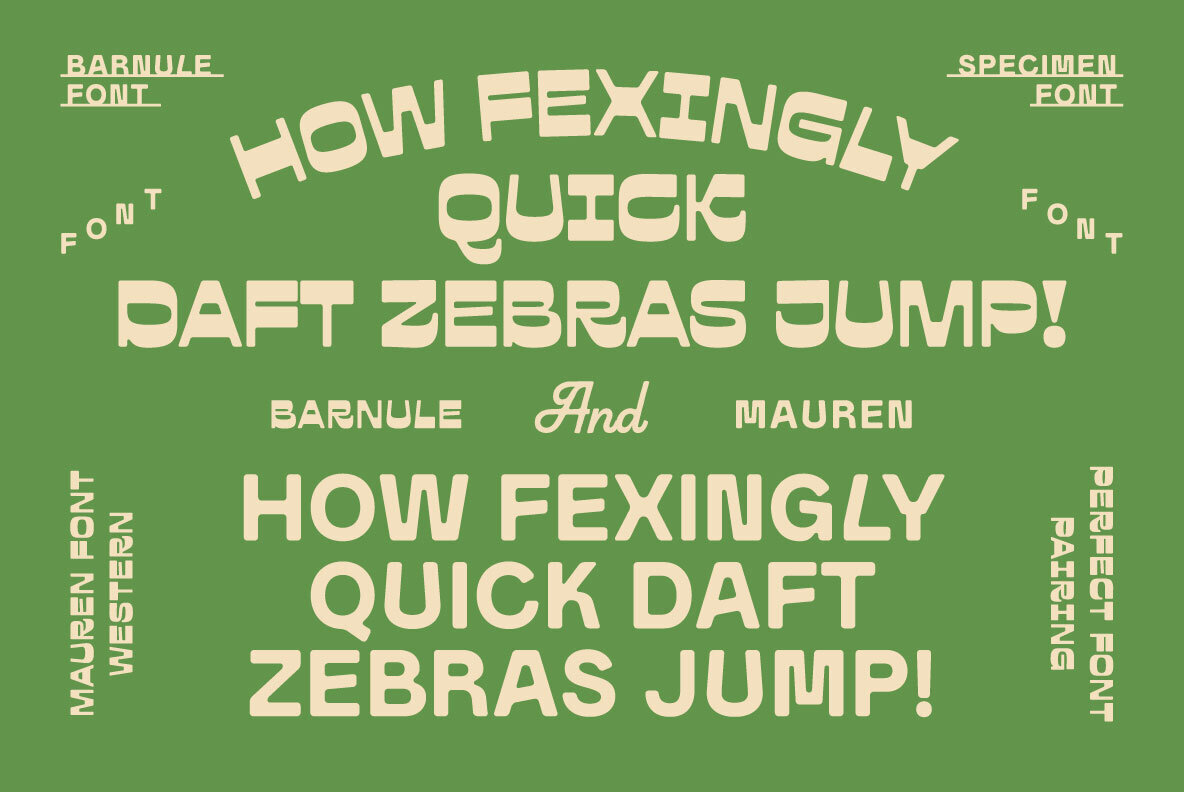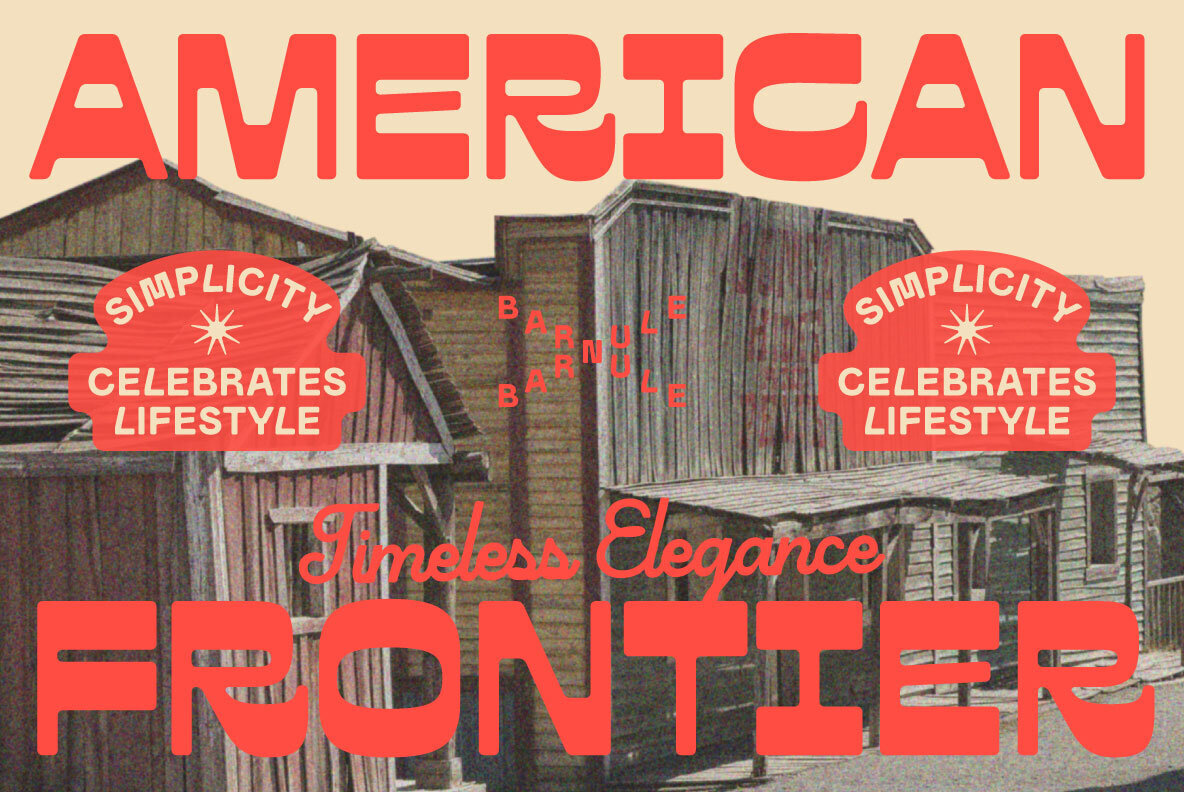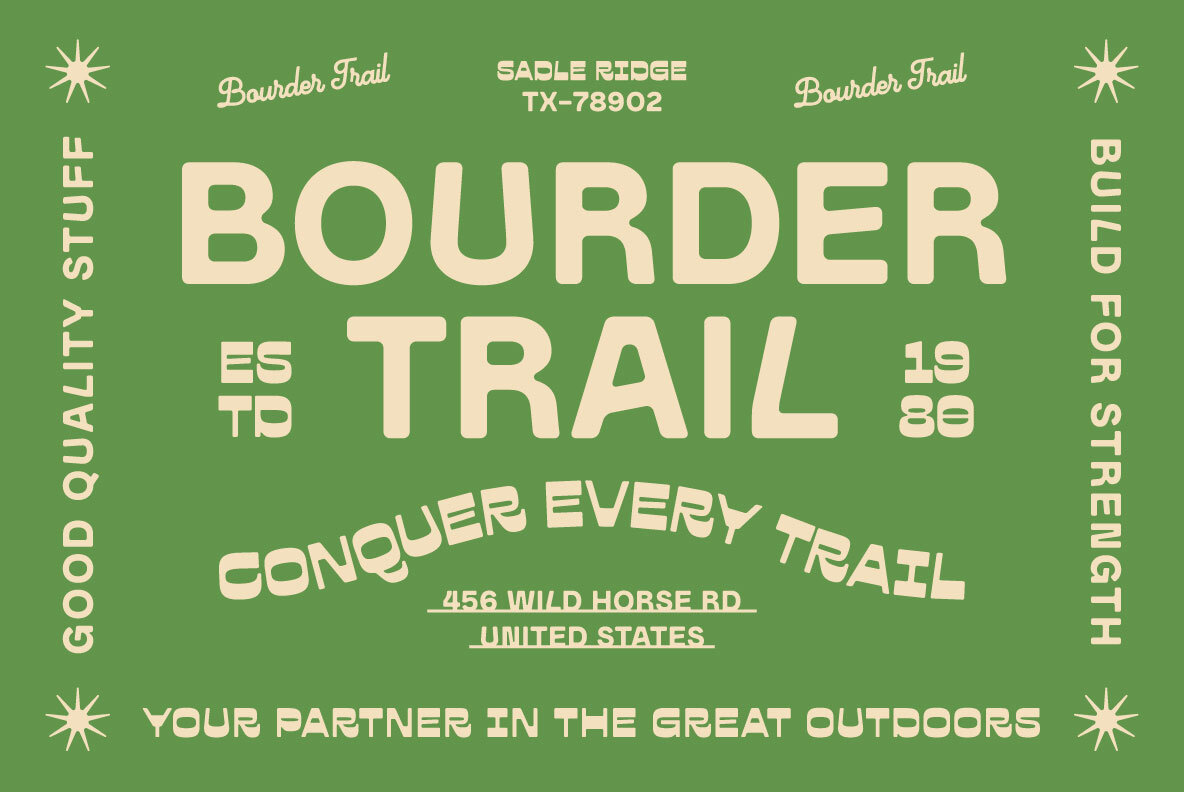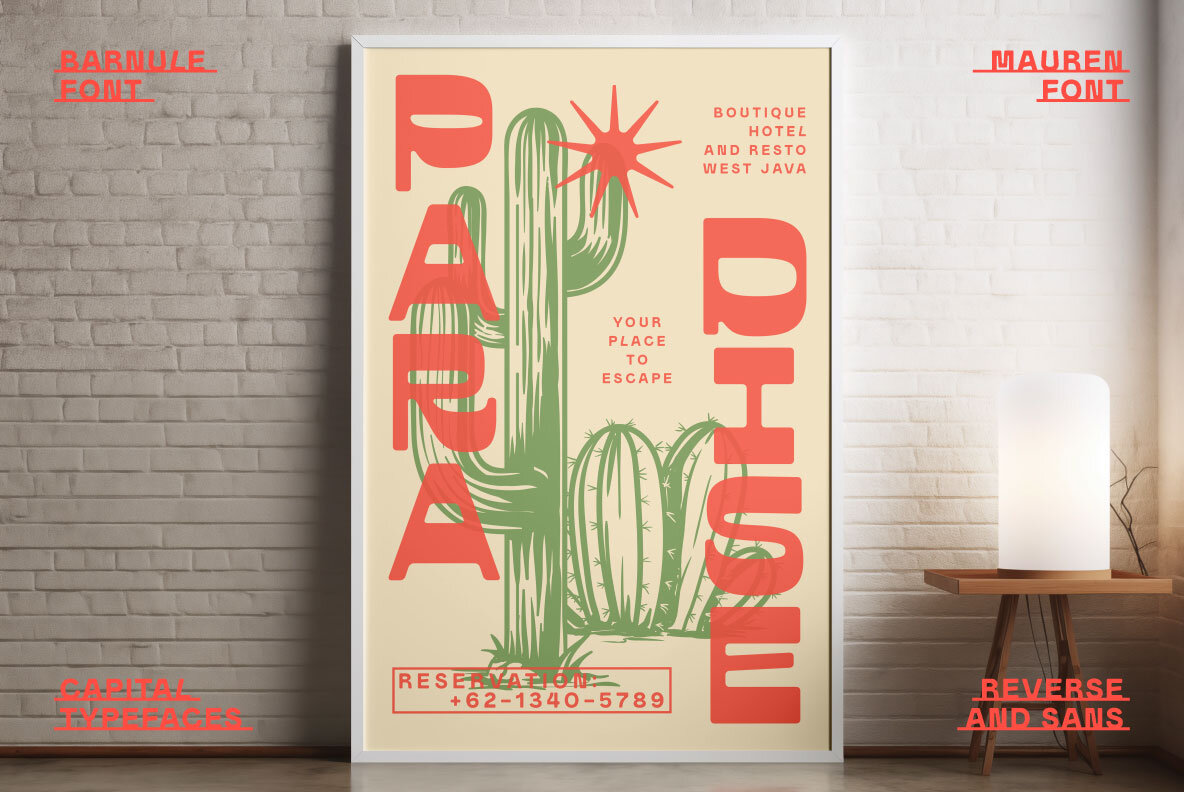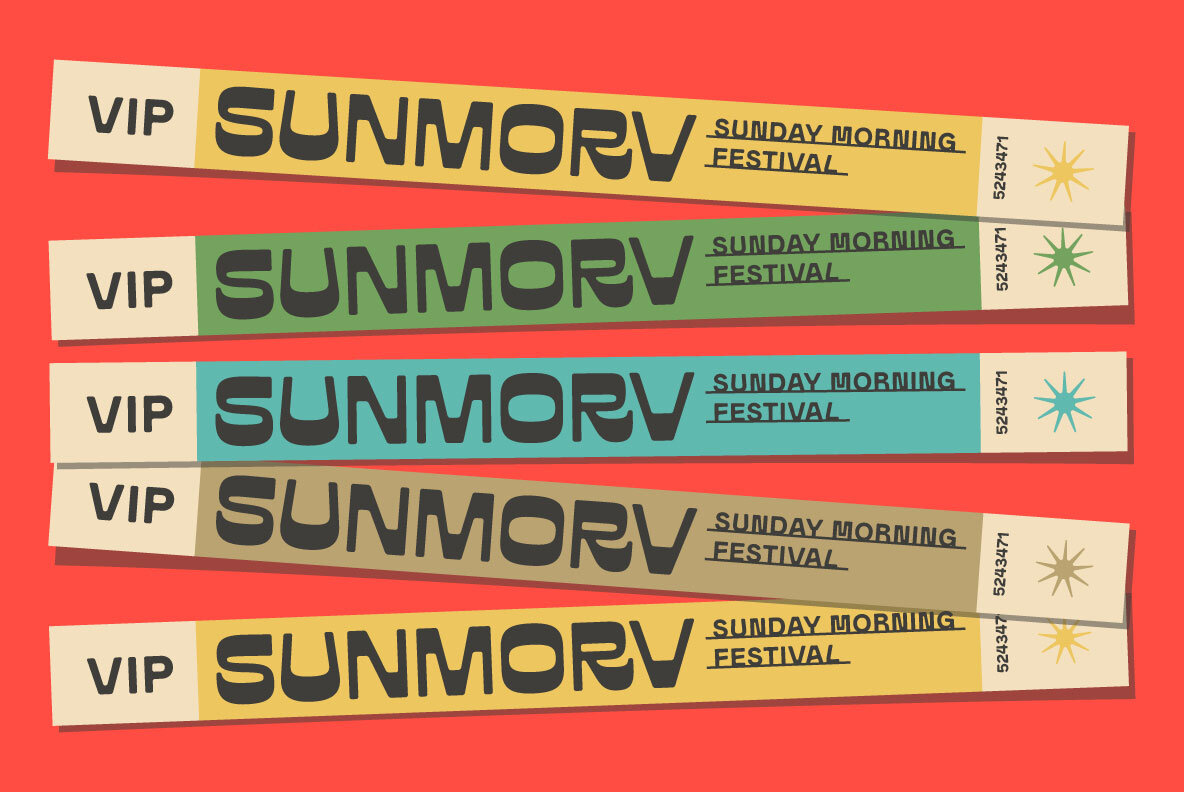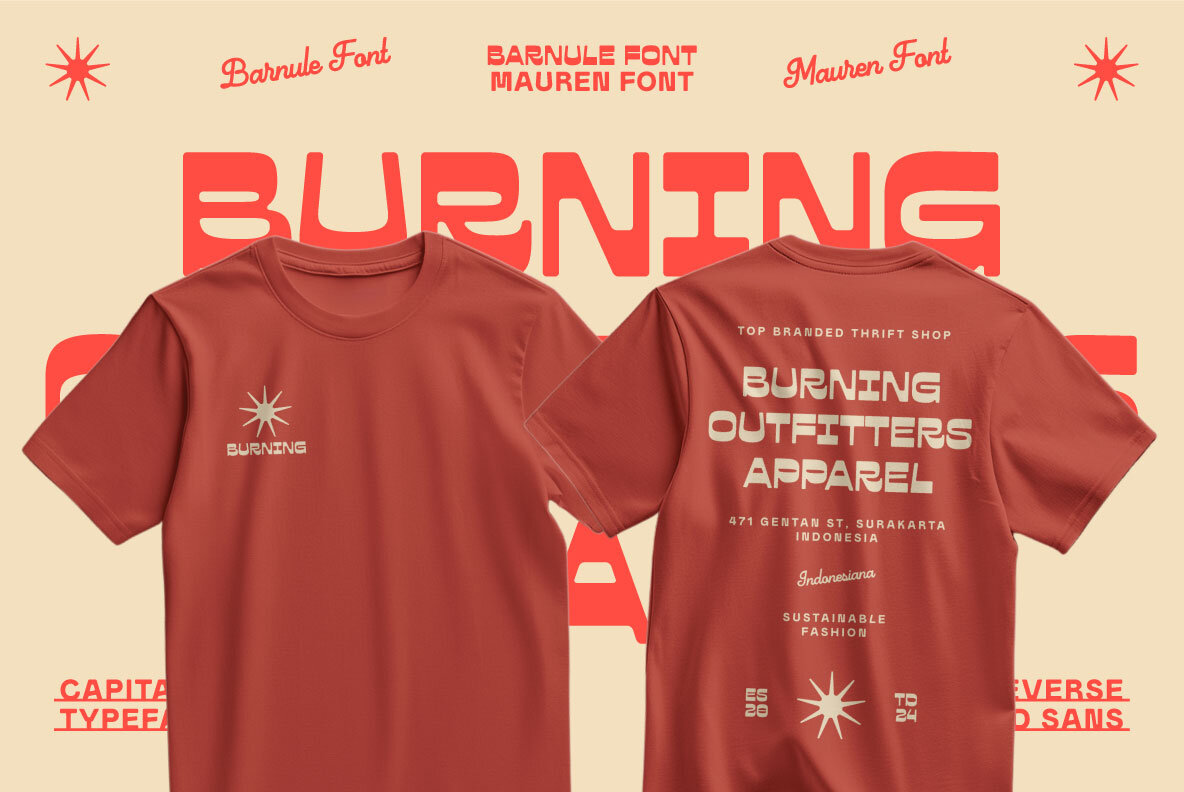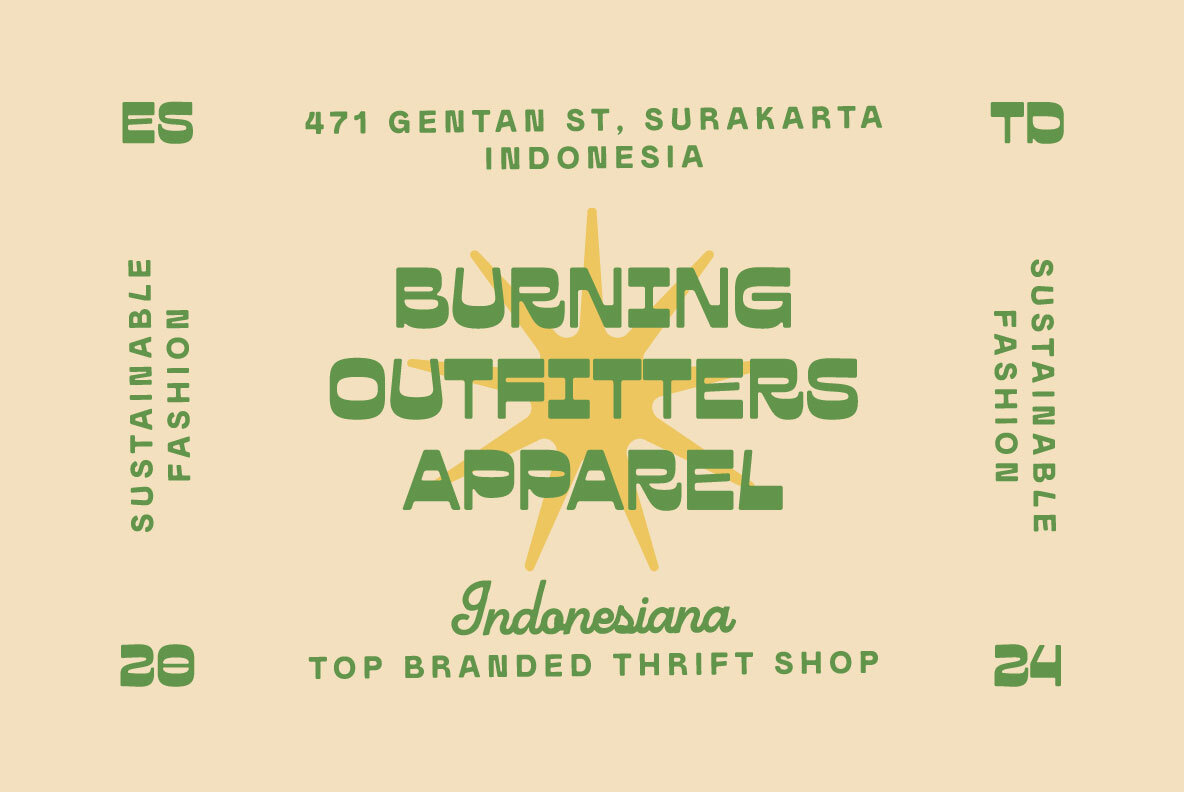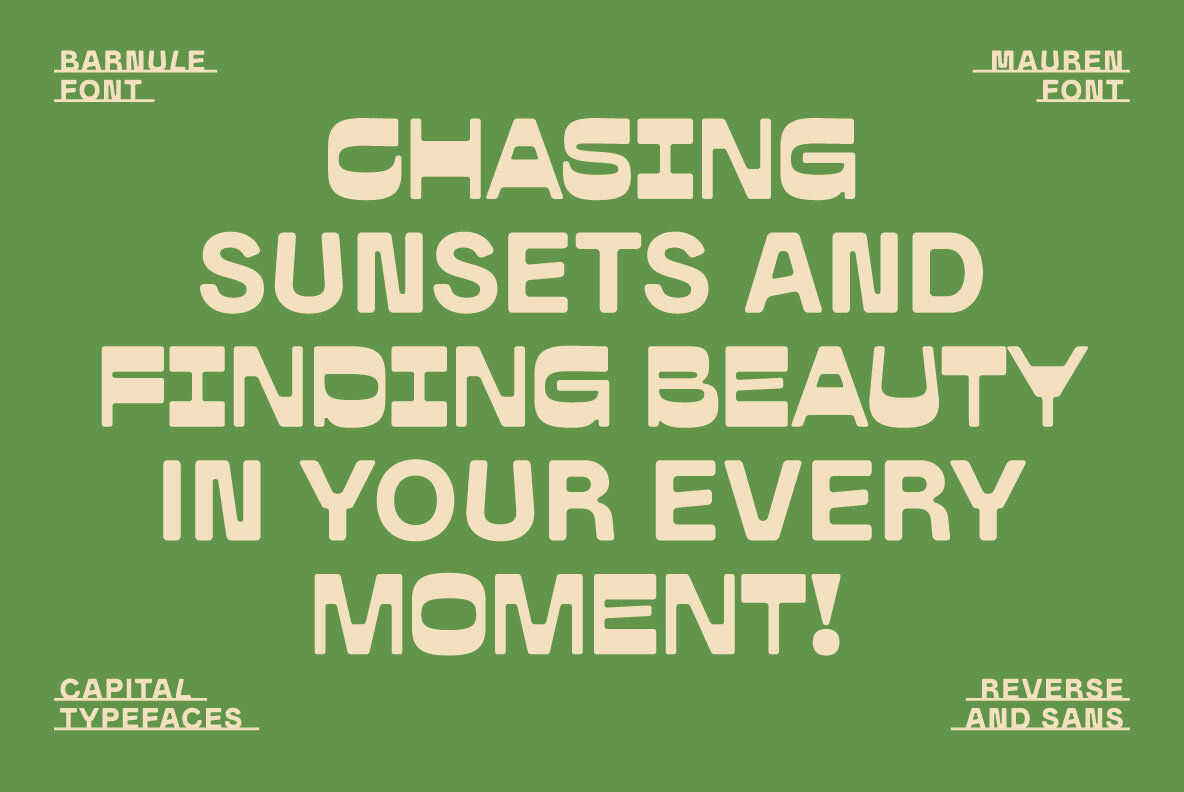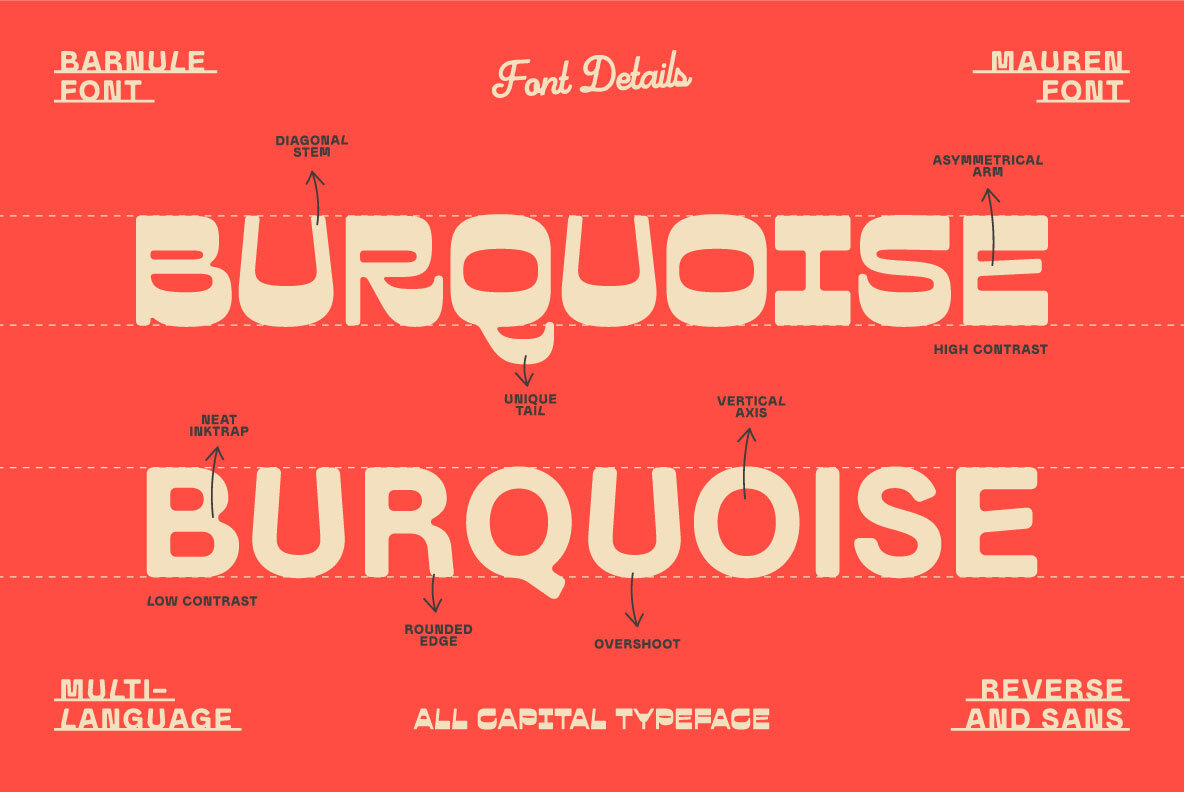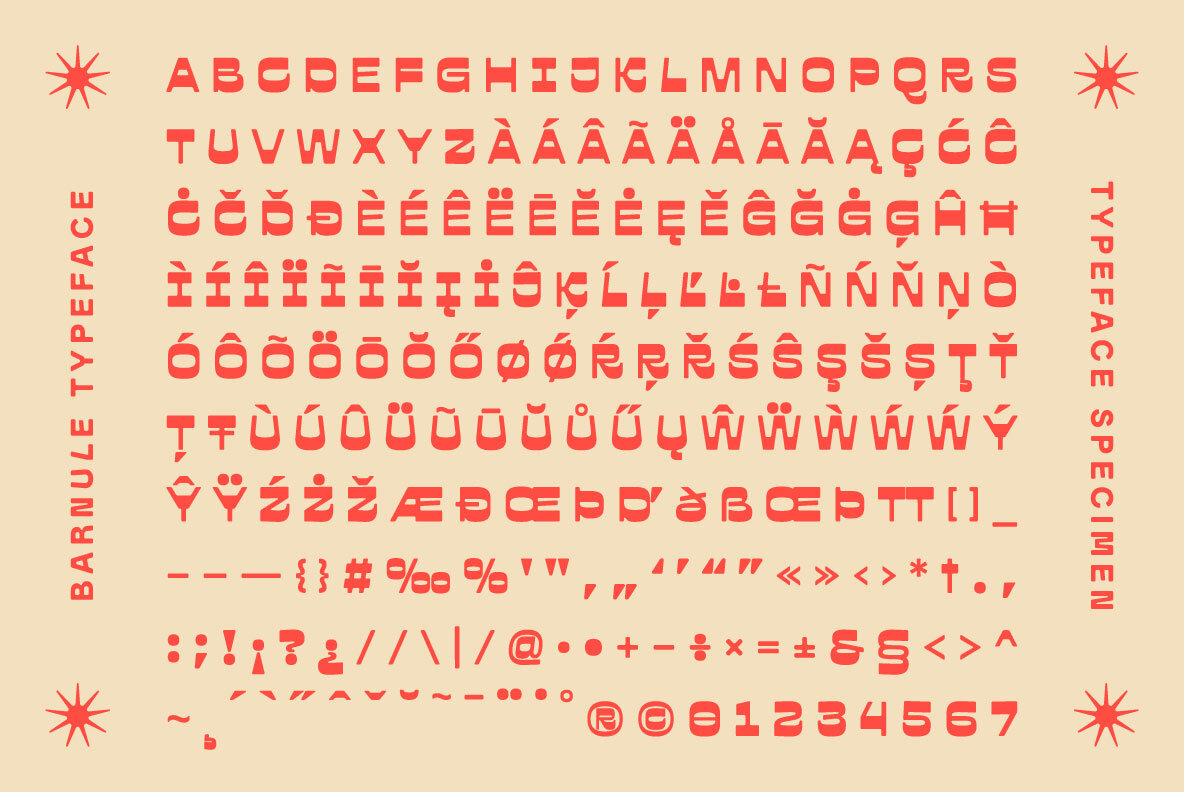
Barnule and Mauren Font
Barnule Regular
Mauren Regular
Barnule and Mauren Font Duo, the perfect blend of modern western flair and vintage appeal. With its bold, all-caps style and unique rounded edges, it’s designed to make your projects stand out. This font duo offers a clean, readable aesthetic, ideal for anything from apparel and packaging to branding and outdoor-themed designs. Its versatility shines in both digital and print, with a robust selection of alternate characters and multilingual support. Capture the essence of the American frontier with this timeless typeface that adds both simplicity and elegance to your work.